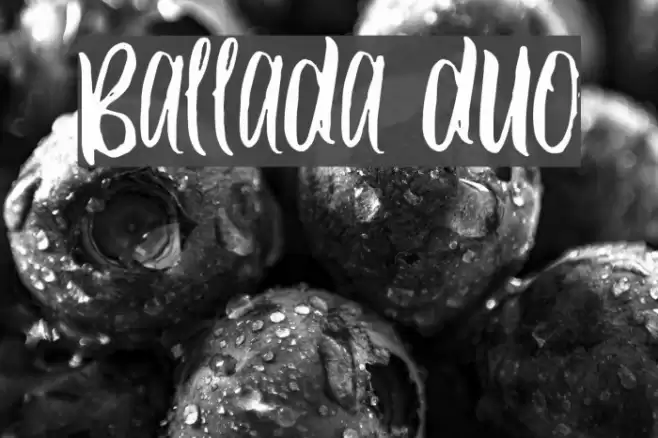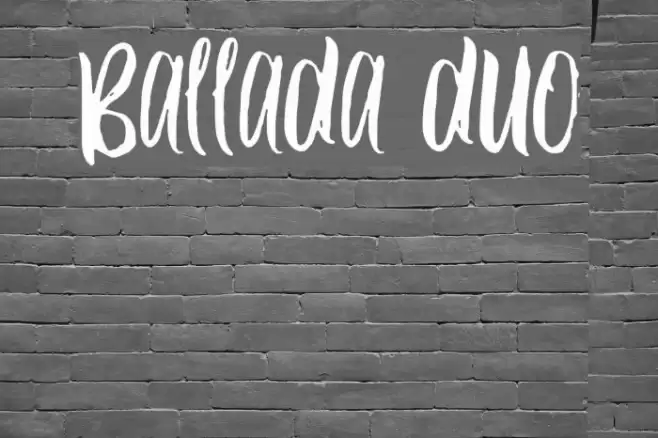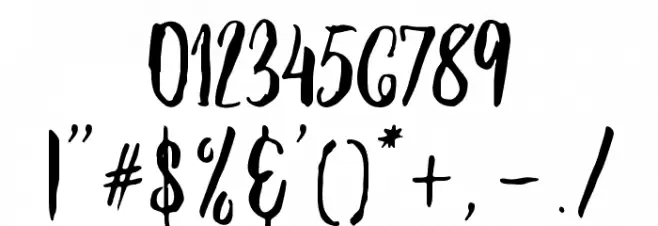
Ballada duo Font
Ballada duo Description
This font features a bold and expressive handwritten style, characterized by its dynamic and flowing letterforms. The uppercase letters are tall and slightly irregular, giving a sense of movement and energy. The lowercase letters maintain a consistent style, with some letters extending below the baseline, adding to the playful and artistic feel. The numbers and special characters are designed to match the overall aesthetic, with a similar boldness and fluidity. This font is ideal for projects that require a personal touch or a creative flair.
A bold, expressive handwritten font with dynamic and flowing letterforms from Uncategorized fonts.
- Proposed Projects: Ideal for greeting cards, posters, branding, and creative projects that require a personal touch.